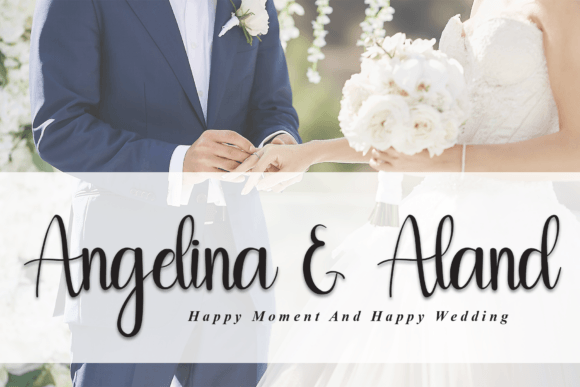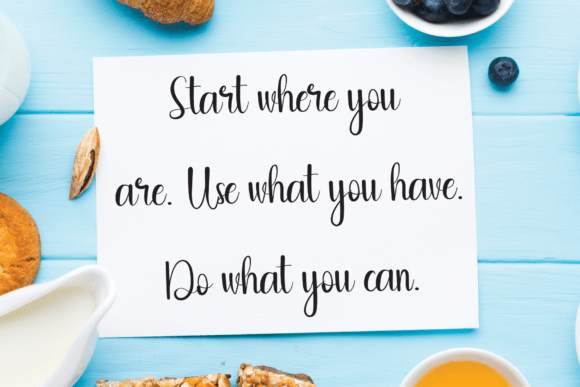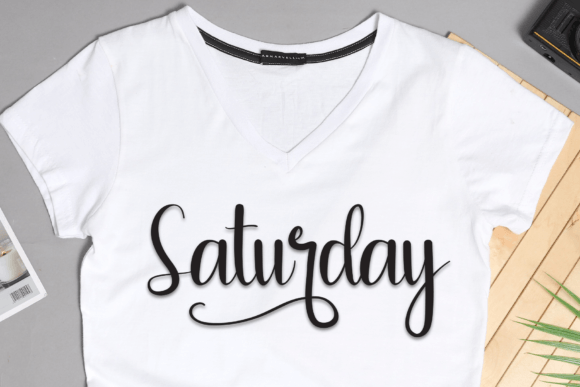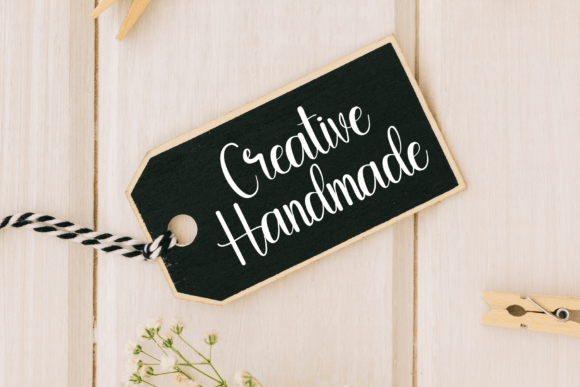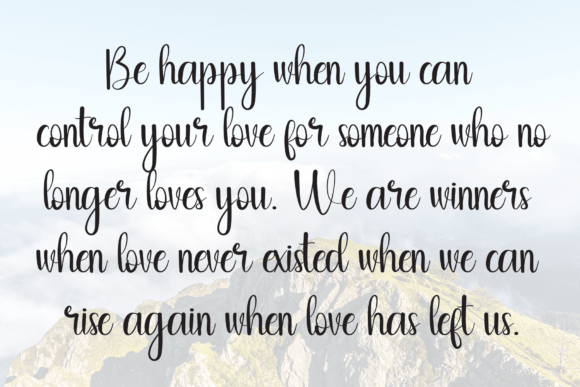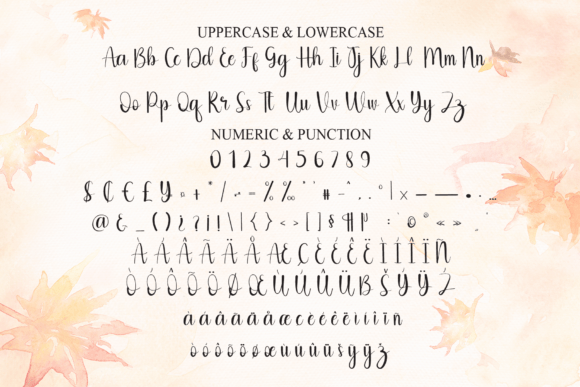
Discover the Whimsy of Autumn Font
As designers, we’ve all been there – staring at a blank page, trying to conjure up the perfect font to match the tone of our project. It’s that magical moment when everything comes together, and our design starts to take shape. For me, that moment often involves the right handwritten font that adds a touch of personality to my work.
Enter Autumn Font, a delightful and personable handwritten display font that effortlessly adds a dash of charm to any project. With its endearing and playful edge, this font perfectly captures the essence of joy and friendliness. Whether you’re crafting eye-catching wedding invitations, memorable cards, or any other design imbued with a lively spin, Autumn Font is your ideal creative companion.
As designers, we know how valuable it is to have the right tools at our disposal. Autumn Font is a matchless choice for anyone looking to add a personal touch to their work, and its versatility makes it a valuable addition to any design toolkit.
Autumn Font Key Features
- Unique Characteristics: Features a warm, earthy tone with subtle texture, evoking the feeling of autumn leaves
- Font Style: Includes a range of font styles, including regular, bold, italic, and bold italic
- Character Set: Supports a wide range of languages, including Latin, Cyrillic, and Greek scripts
Designer Review: Autumn Font
Overall, I think the Autumn font is a decent addition to any design project. ✨ One thing that stands out is its unique blend of traditional and modern elements, making it a great choice for those who want to add a touch of elegance to their work.
- Legibility: The font is highly legible, making it perfect for body text or headings.
- Variety: Autumn comes in multiple weights and styles, allowing you to mix and match to create a unique look.
- Flexibility: The font works well in both print and digital formats.
- Lack of expressiveness: While Autumn is a beautiful font, it may not be the best choice for projects that require a lot of emotional expression.
- Not suitable for small text: The font’s elegant lines can make it difficult to read in small sizes.
Overall, I would give Autumn font 3.5 out of 5 stars. It’s a solid choice for designers who want a classic look, but it may not be the best fit for more experimental or expressive projects. ⚠️ With a little creativity and experimentation, however, it can be a great addition to any design project.
Autumn Font is ideal for fall-themed designs, such as invitations, posters, and social media graphics. To get the most out of it, use it in combination with warm colors and autumn-inspired graphics, such as leaves and pumpkins. Experiment with different font sizes and styles to create a visually appealing design.